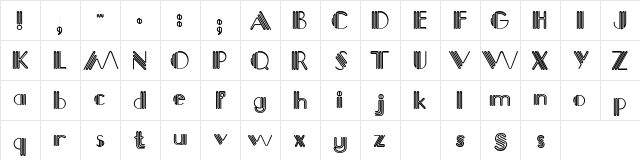
Picadilly Regular
Design Context for Picadilly Typeface
Picadilly is a composed and adaptable typeface that performs quietly and consistently across a wide range of design contexts.